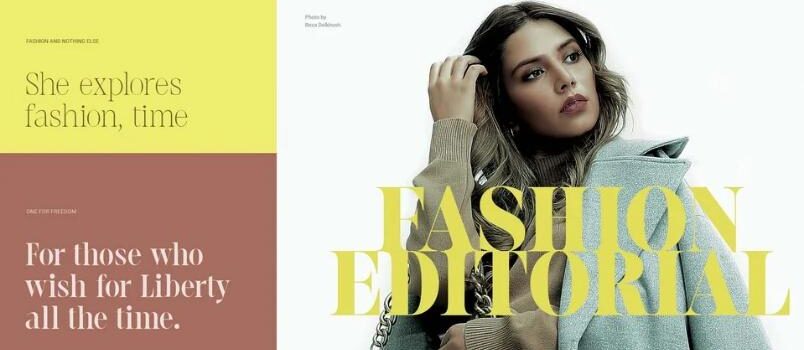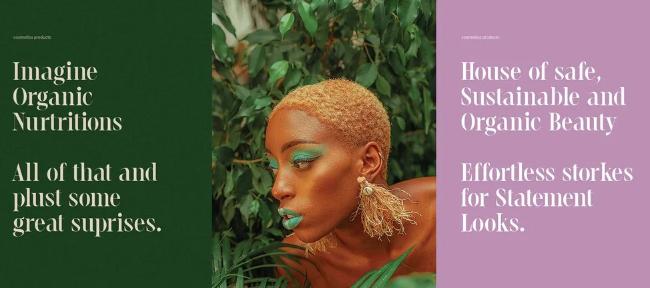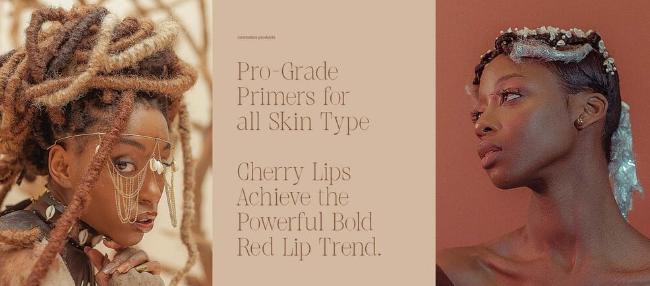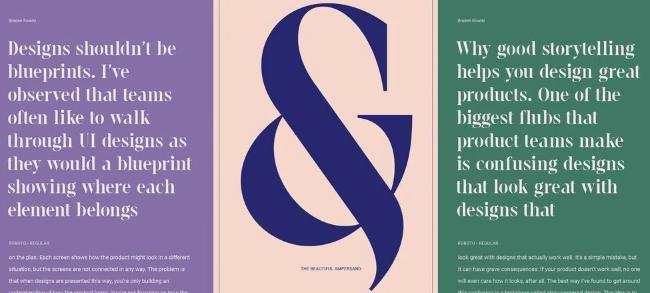
Free Font Of The Day – Meshed Display
This typeface celebrates the art of letterforms. MESHED Display is a labor of love – a carefully crafted Rational Serif where every character has been thoughtfully designed. Its distinctive personality comes from the dramatic contrast between bold vertical strokes and delicate horizontal lines. True to its name, MESHED shines when used at larger sizes, allowing its intricate details to captivate your audience and speak directly to your consumers.